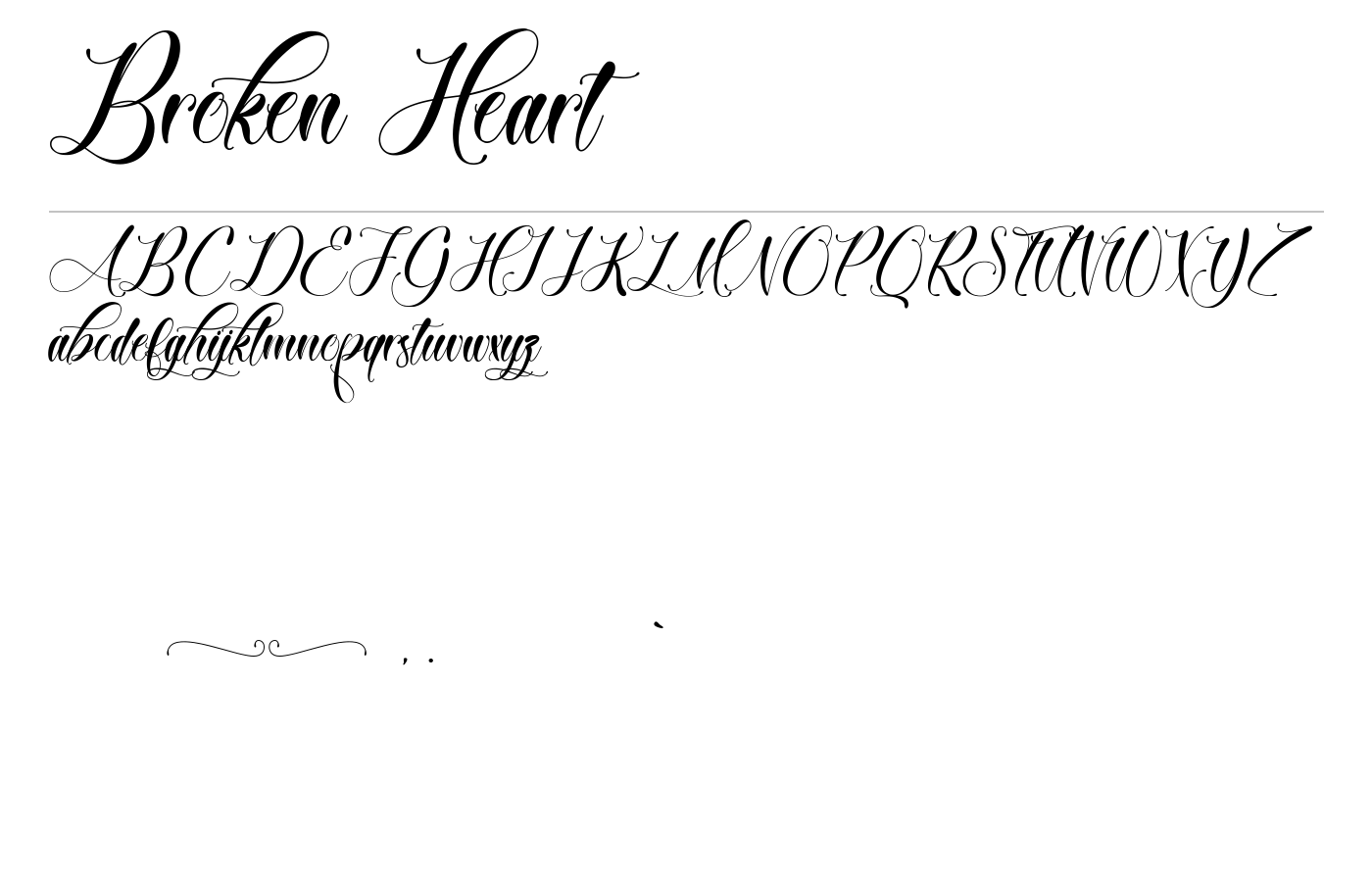
Broken Heart Font is a delicate and elegant script font featuring flowing, calligraphic strokes with high contrast between thick and thin lines. Its intricate swashes and flourishes give it a romantic and sophisticated feel, making it ideal for invitations, branding, and any design that seeks a touch of luxury and refinement. This font works beautifully in headlines and decorative text where its ornate style can truly shine.
Broken Heart Font
About Broken Heart Font